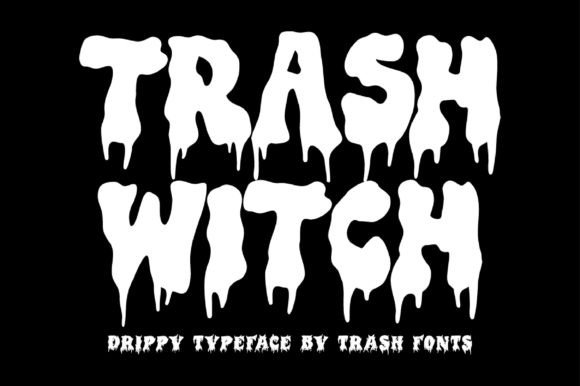
Introducing Trash Witch Font, the ultimate choice for those seeking the perfect font to elevate their music programs. Created by Prioritype, this mesmerizing display font is unlike anything you've ever seen before. With its melting, otherworldly appearance, Trash Witch Font is guaranteed to captivate and enthrall users looking to buy.
Imagine a font that transports you to a mystical realm, where creativity knows no bounds. Trash Witch Font does just that, with its spellbinding allure and enchanting aesthetic. Whether you're designing merchandise, logos, or posters, this font will effortlessly bring a touch of magic to your creations.
Let Trash Witch Font unleash your imagination and watch as your designs come to life. Its unique and captivating style sets it apart from the mundane and adds a dash of intrigue to any project. This font is not just a tool; it's an experience that will take your music programs to new heights.
With Trash Witch Font, you'll have the power to create designs that leave a lasting impression. Its keyword-rich features make it the best choice for those in search of a font that perfectly complements their music programs. From concert posters that demand attention to album covers that exude emotion, this font has it all.
Don't settle for ordinary fonts when you can have the extraordinary. Trash Witch Font is here to revolutionize your designs and take them to the next level. It's time to unleash your creativity and let the magic flow with this one-of-a-kind display font.
So why wait? Embrace the allure of Trash Witch Font and let your designs cast a spell on your audience. Discover the power of this captivating font and unlock a world of endless possibilities. Get ready to enchant and amaze with Trash Witch Font, the best font for music programs.